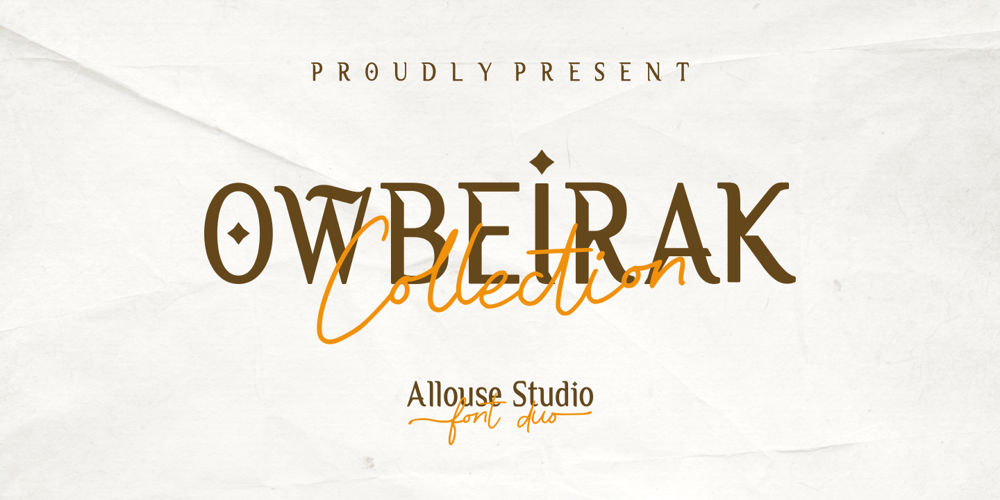
Owbeirak Font Family was designed by Fachrizal Yusuf and published by Allouse Studio. Owbeirak contains 2 styles and family package options. Owbeirak is a Font Duo Serif & Script that will bring you an luxury and stylish impression. Owbeirak Script also come with many stylistic alternates, ligatures, and Multi-Lingual Support.We highly recommend using a program that supports OpenType features and Glyphs panels like many of Adobe apps and Corel Draw, so you can see and access all Glyph variations.Owbeirak is perfect for any tittles, logo, product packaging, branding project, magazine, social media, wedding, or just used to express words above the background.